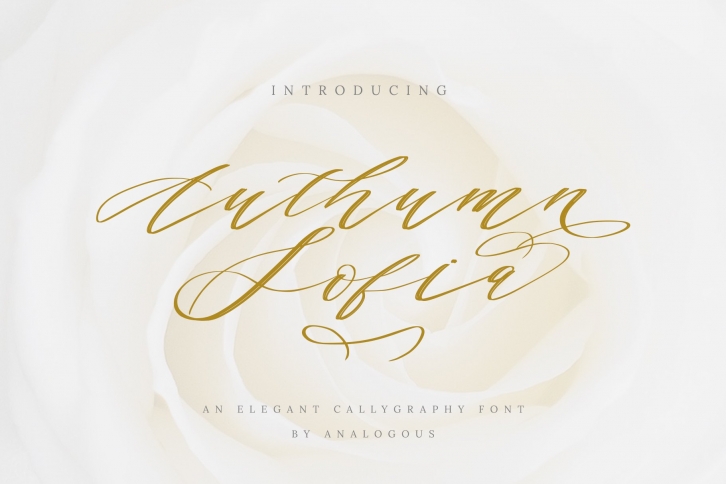
Authumn Sofia is a gorgeous font that was realeased on July 10, 2020. The font can be used in many style contexts and design environments. Perfect for invitations, magazines, websites, logos, and more! It was designed by Analogous and the file size is 21.50 MB. Thanks for checking out this font!